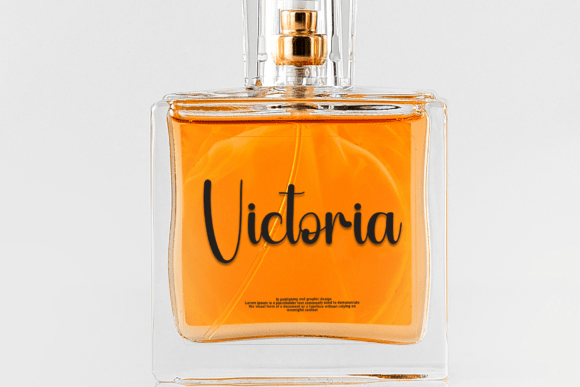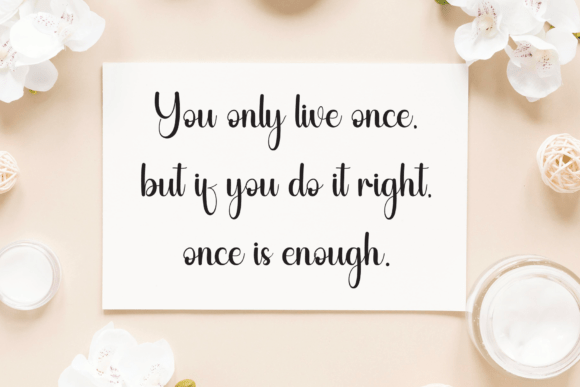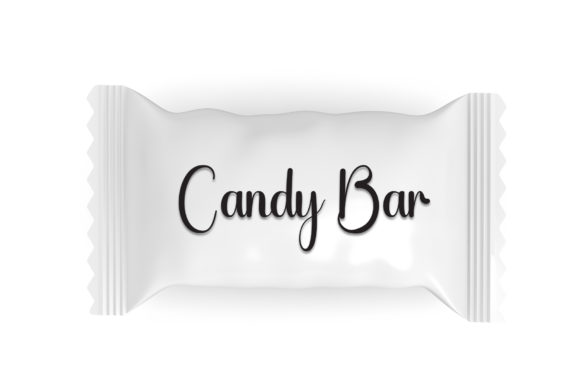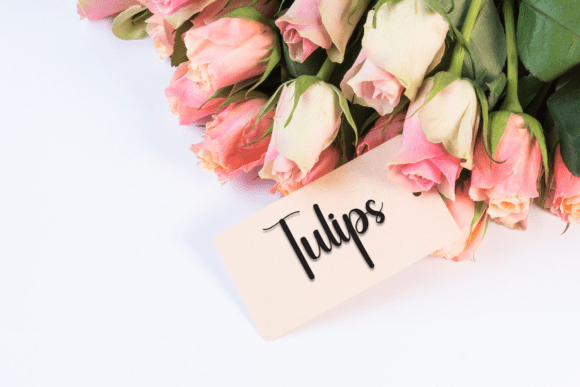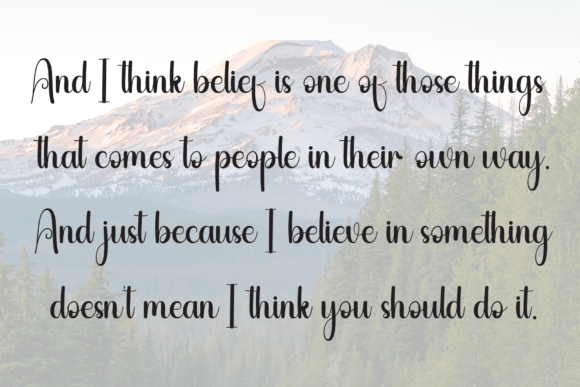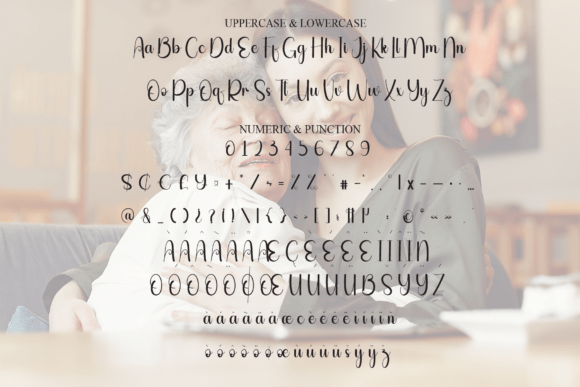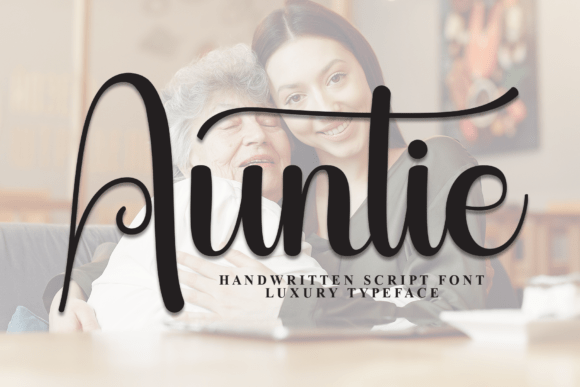
Auntie Font: Elevate Your Designs with a Touch of Elegance and Playfulness
In the world of typography, fonts play a crucial role in conveying the tone and personality of a design. For designers and crafters looking to add a personal touch to their projects, Auntie Font is an excellent choice. This stylish handwritten script font seamlessly blends modern elegance with a playful touch, making it perfect for a wide range of applications.
The Characteristics of Auntie Font
Auntie Font boasts fluid strokes and charming curves that bring a sense of warmth and sophistication to any design. Its unique blend of modern and playful elements makes it an ideal choice for designers looking to create something truly special. Whether you’re working on a logo, packaging, or invitation, Auntie Font is sure to make your project stand out.
What Makes Auntie Font So Versatile?
One of the key features that sets Auntie Font apart is its versatility. This font can be used in a variety of contexts, from formal events to casual designs. Its elegant and refined appearance makes it perfect for:
- Logos: Create a lasting impression with a custom logo that exudes sophistication and style.
- Packaging: Add a touch of elegance to your product packaging and make it stand out on store shelves.
- Invitations: Make your invitations truly special with a font that adds a personal touch.
The Benefits of Using Auntie Font
So, why choose Auntie Font for your next project? Here are just a few benefits of using this stylish handwritten script font:
- Warmth and Sophistication: Auntie Font adds a touch of warmth and sophistication to any design, making it perfect for projects that require a personal touch.
- Creativity and Flexibility: With its unique blend of modern and playful elements, Auntie Font gives designers the freedom to create something truly unique.
- Ease of Use: Auntie Font is easy to read and works well in a variety of sizes, making it perfect for both digital and print applications.
Tips for Using Auntie Font Effectively
To get the most out of Auntie Font, here are a few tips to keep in mind:
- Pair it with Other Fonts: Combine Auntie Font with other fonts to create a unique and visually appealing design.
- Keep it Simple: Don’t be afraid to keep things simple and let the font speak for itself.
In conclusion, Auntie Font is a stylish handwritten script font that is sure to elevate your designs to the next level. With its unique blend of modern elegance and playful touch, it’s perfect for designers and crafters looking to add a personal touch to their projects. Whether you’re working on a logo, packaging, or invitation, Auntie Font is an excellent choice. So why not give it a try and see the difference it can make?
- Stylish handwritten script font
- Blends modern elegance with a playful touch
- Fluid strokes and charming curves
- Ideal for logos, packaging, and invitations
- Adds warmth, sophistication, and creativity to designs